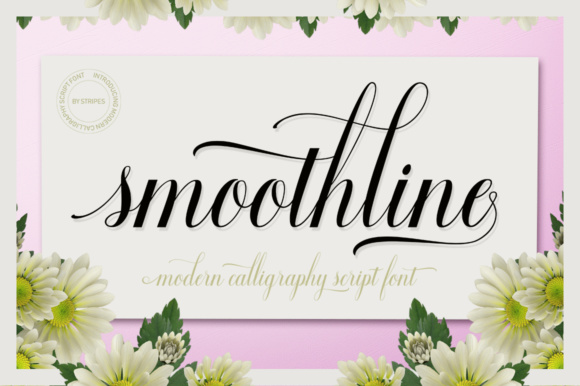
Unlock the Elegance of Smoothline Script Font: Where Sophistication Meets Playfulness
Journey into the realm of captivating typography with the Smoothline Script Font, meticulously crafted by Stripes Studio. Designed to evoke a sense of effortless sophistication and playful charm, this modern handwritten script will elevate your designs to new heights of visual appeal. It's easy to use, boasting great readability that ensures your message shines through effortlessly. Whether you're a seasoned designer or embarking on your creative journey, Smoothline Script is your perfect companion, ready to transform your projects into stunning masterpieces.
With its graceful strokes and flowing curves, Smoothline Script adds a touch of elegance to any design. Its versatility knows no bounds, making it ideal for a wide range of applications, from branding designs to personal projects and everything in between. Unleash your imagination and let your creativity soar as you explore the endless possibilities that Smoothline Script has to offer.
Dive into the world of Smoothline Script's curated collection, handpicked to provide a symphony of visual harmony. Each font carries a unique personality, allowing you to tailor your designs to suit any occasion or project. From the playful charm of "Smoothline Script Regular" to the captivating elegance of "Smoothline Script Bold," find the perfect fit to bring your vision to life.
Indulge in the beauty of Smoothline Script and experience the joy of creating designs that resonate with your audience. Its meticulous craftsmanship ensures a seamless user experience, allowing you to focus on your creative vision without hindrance. Say goodbye to the mundane and embrace the extraordinary with Smoothline Script, your gateway to a world of captivating designs.